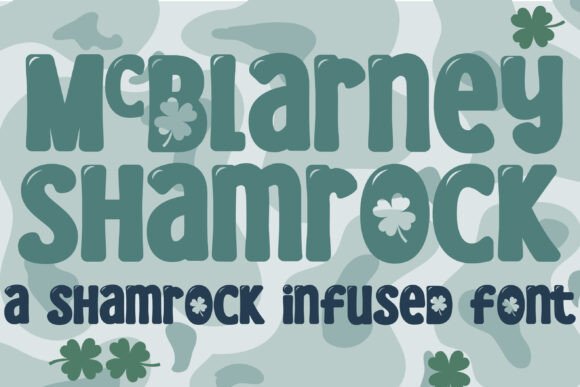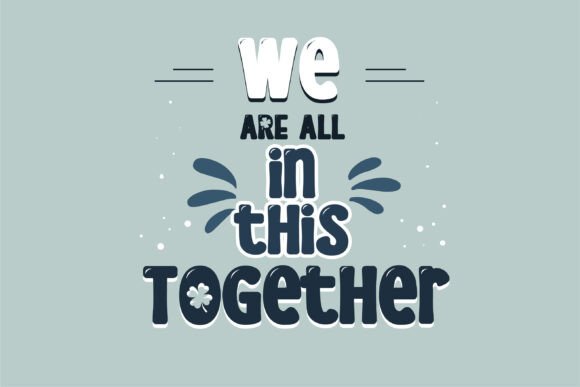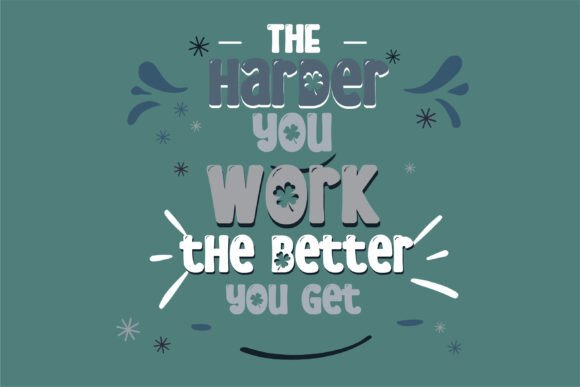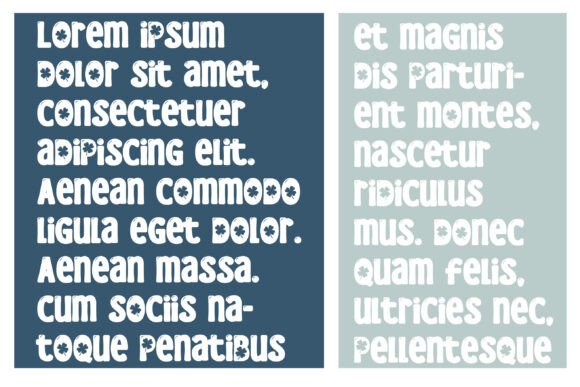
Mcblarney Shamrock Font
About the Mcblarney Shamrock Font
Discover the charm of Mcblarney Shamrock Font. This font is a perfect blend of modern aesthetics and classic appeal. This hand-crafted sans serif is fun, thick font sporting highlights and clover.
Mcblarney Shamrock’s playful, bold personality makes it ideal for headlines, short text blocks on posters, or branding elements needing a friendly, approachable feel. It works exceptionally well for projects related to Irish themes, St. Patrick’s Day promotions, or brands targeting a youthful audience. Avoid using it for body text or lengthy paragraphs; its thickness and decorative elements hinder readability in continuous prose.
Pair Mcblarney Shamrock with a clean, neutral sans-serif like Open Sans for body copy to create visual balance. For a more sophisticated feel, consider pairing it with a classic serif like Garamond for contrast. A playful script font like Pacifico could also enhance its informal, celebratory mood, particularly in invitations or greeting cards.
The font’s overall aesthetic is best described as jovial and celebratory. It projects a sense of fun and Irish heritage, making it unsuitable for serious or corporate branding where a more refined and neutral typeface is typically required.
Mcblarney Shamrock Font Usage Examples
Mcblarney Shamrock Font Example